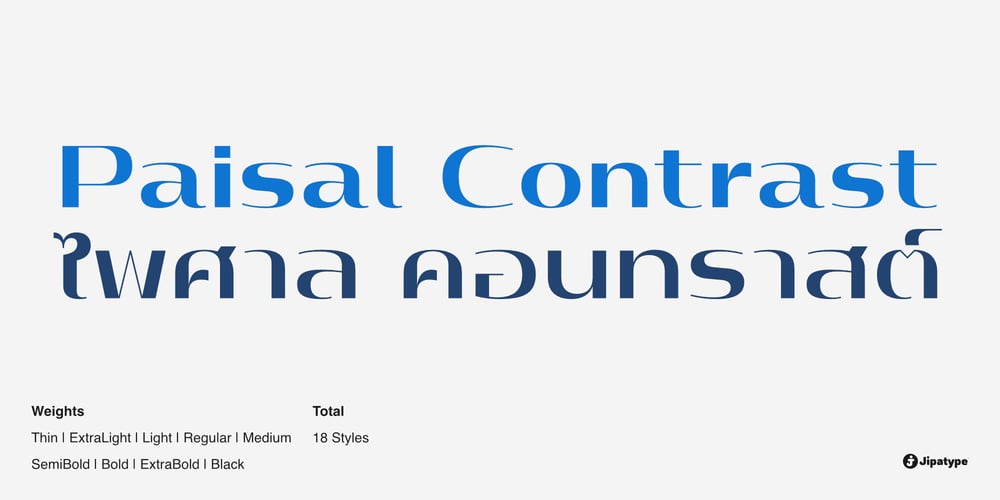
Paisal Contrast
Paisal Contrast font
Paisal Contrast Font Family was designed by Anupap Jaichumnan and published by Jipatype. Paisal Contrast contains 18 styles and family package options. Paisal Contrast is a sans-serif typeface family developed as an extension of the Paisal typeface. It features increased contrast in the letter structure, resulting in a typeface that exudes elegance and beauty. This typeface comprises 18 styles, ranging from the thin to the black weights. It supports both Latin 1 and Thai character sets. Paisal Contrast is suitable for various print applications, both online and offline, and is ideal for design projects that aim to convey beauty.